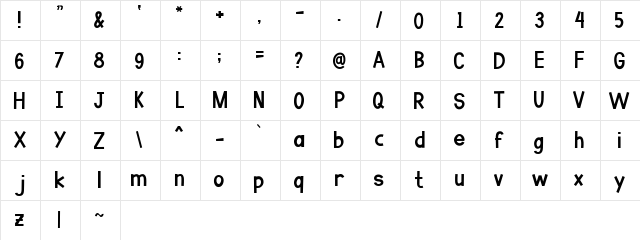
Go Banana Regular
| Foundry | Polah |
| Designer | Polah |
Design Context for Go Banana Typeface
Go Banana offers clean, dependable letterforms without strong stylistic allegiance, making it a practical choice for designers who need flexibility.